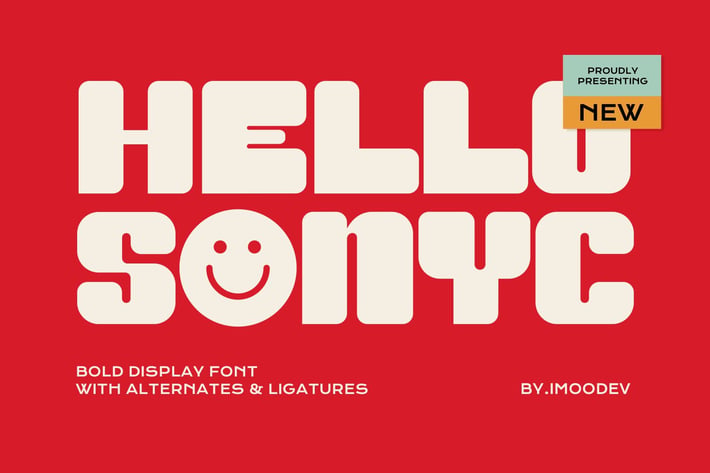
Hello Sonyc - Bold Display Font
Introducing “Hello Sanyc,” is a bold, retro-inspired display typeface with a unique, rounded structure. It features thick, blocky form with rounded corners, creating a playful and friendly look.
Showcases alternate letterforms and ligatures, such as a smiley face replacing the letter “O,” which adds a whimsical touch. This font is ideal for eye-catching designs, especially in logos, posters, or branding materials, and designs that aim for a bold.
Punctuation, Number, and Symbol
Opentype Features